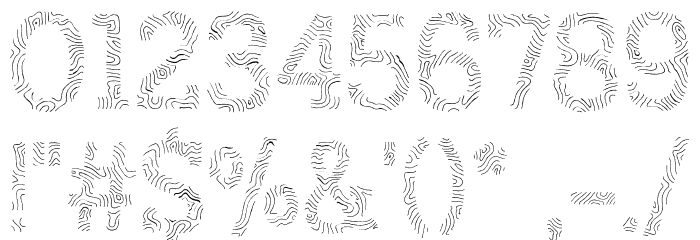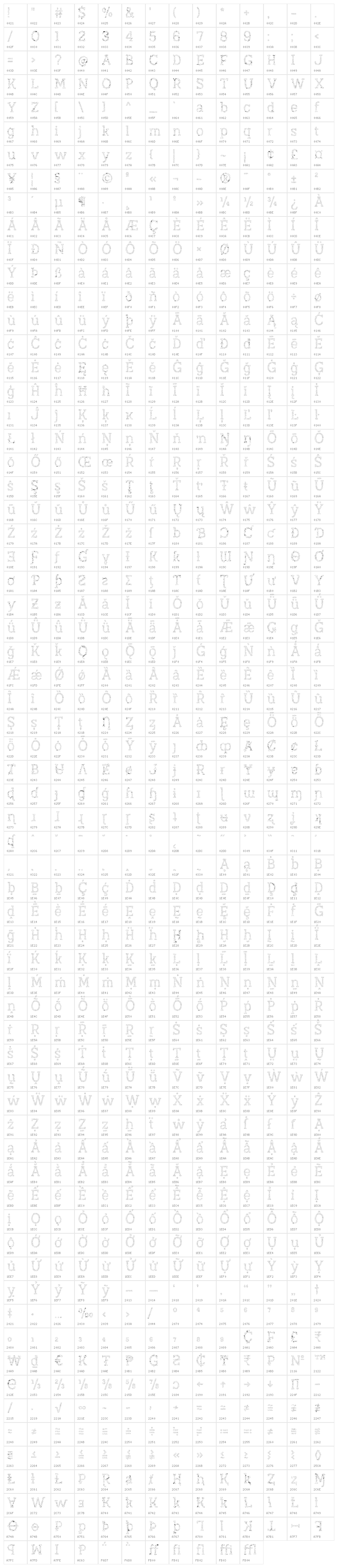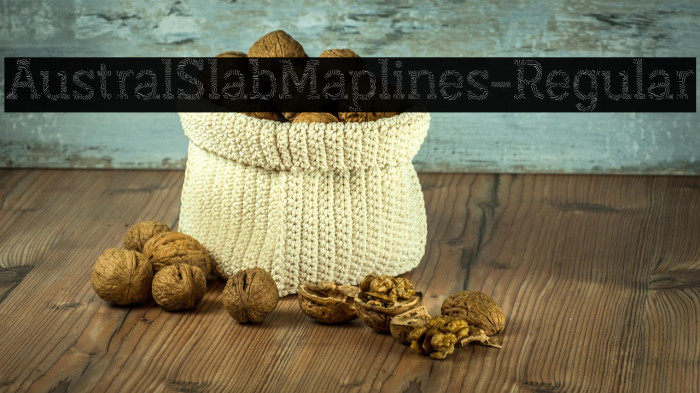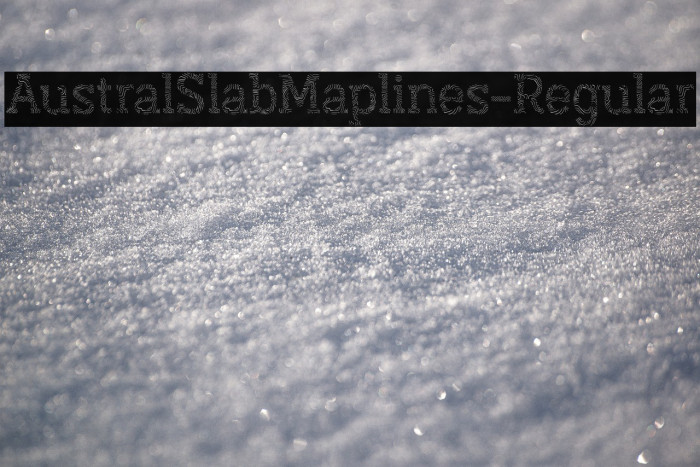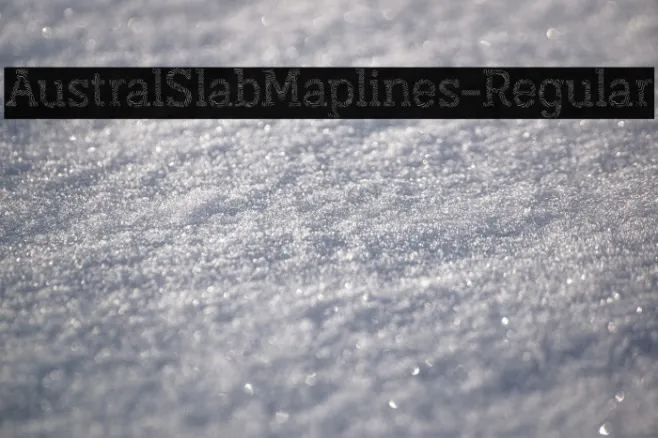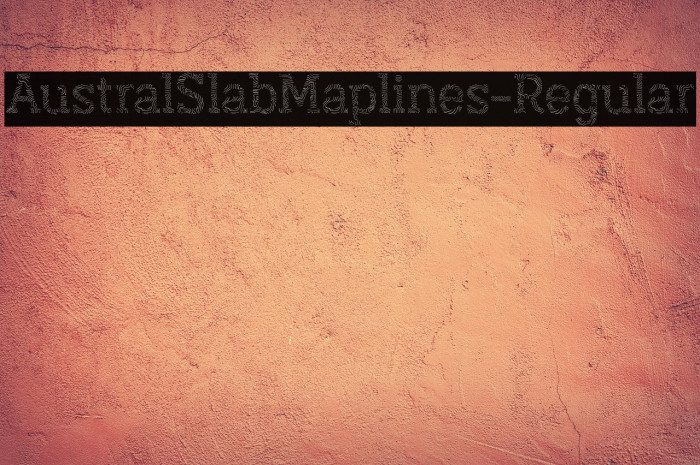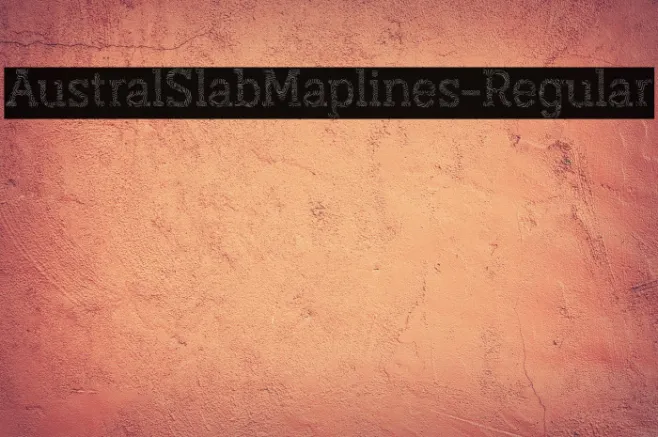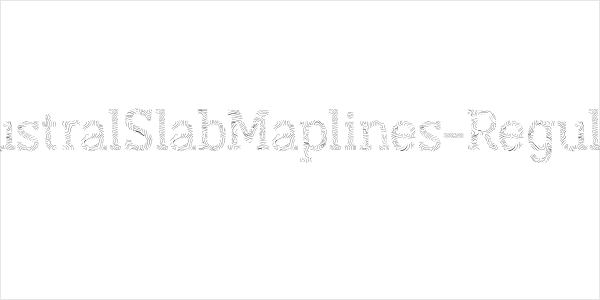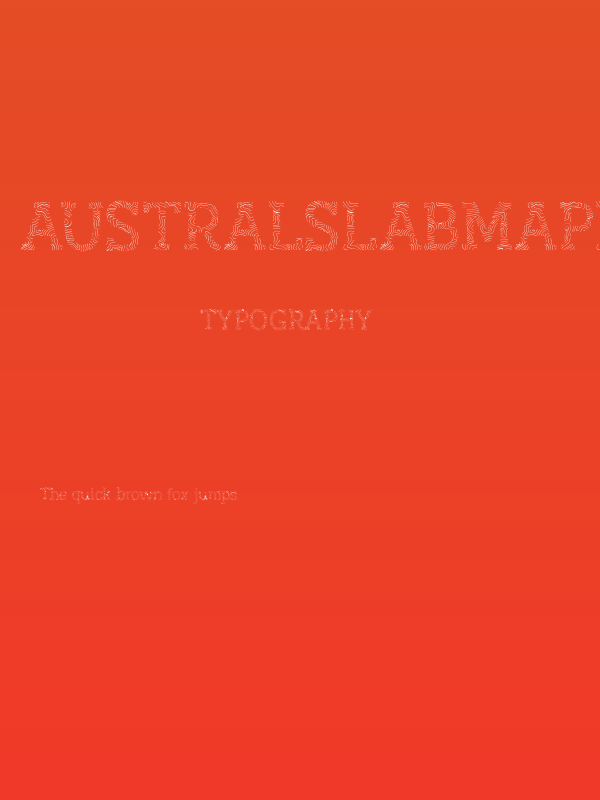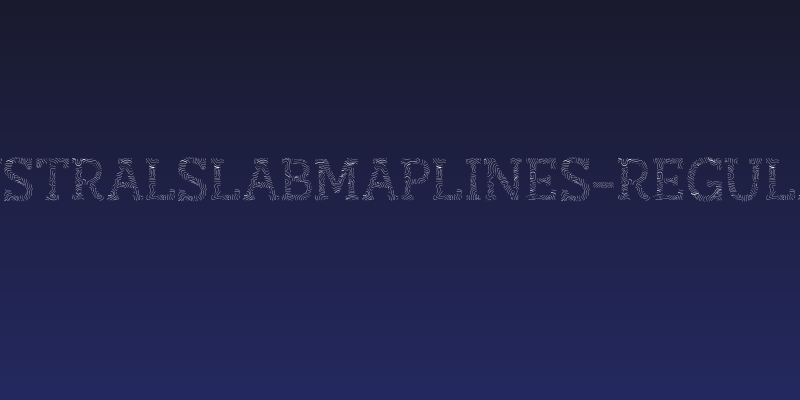
AustralSlabMaplines-Regular Font
AustralSlabMaplines-Regular Description
This font features a unique design with intricate line patterns that resemble topographic maps. Each character is composed of thin, wavy lines that create a textured and layered appearance, giving the font a distinct and artistic look. The uppercase and lowercase letters maintain a consistent style, with the lines forming the shape of each character in a cohesive manner. The numerals and special characters follow the same design principle, ensuring uniformity across the entire character set. This font's detailed and decorative style makes it stand out, providing a visually engaging experience.